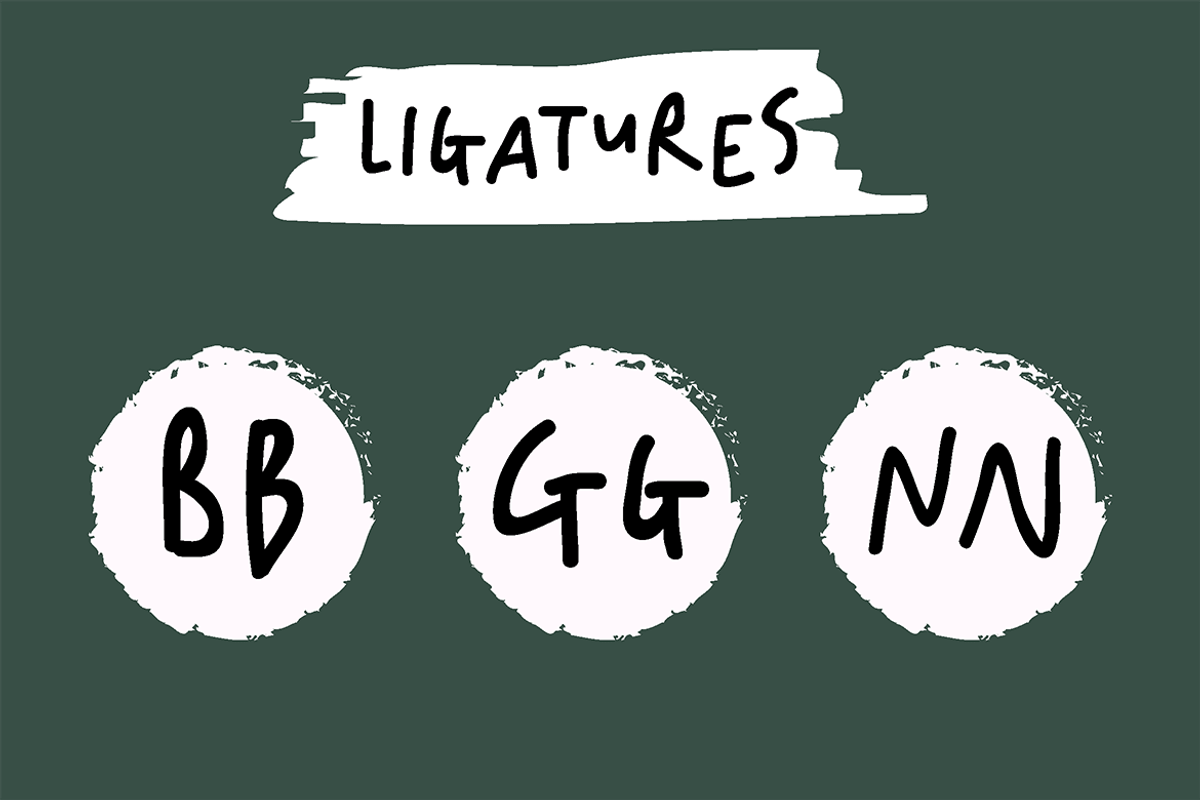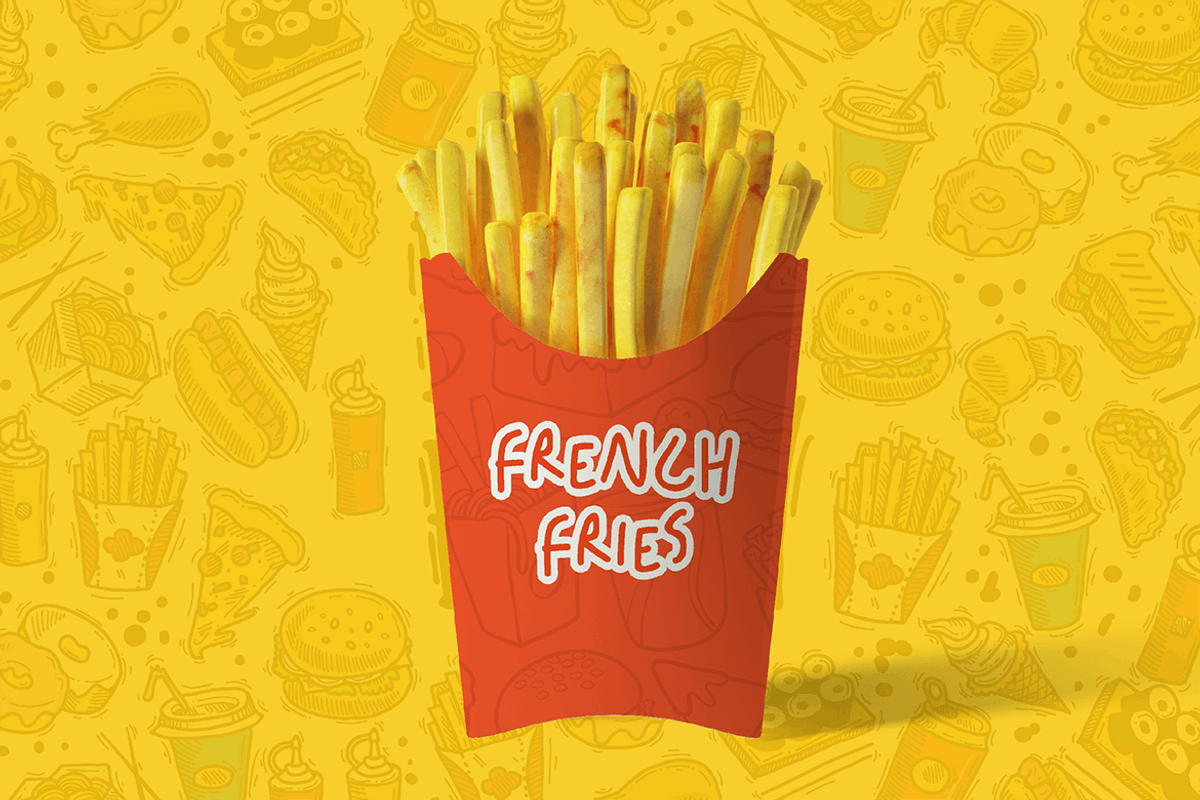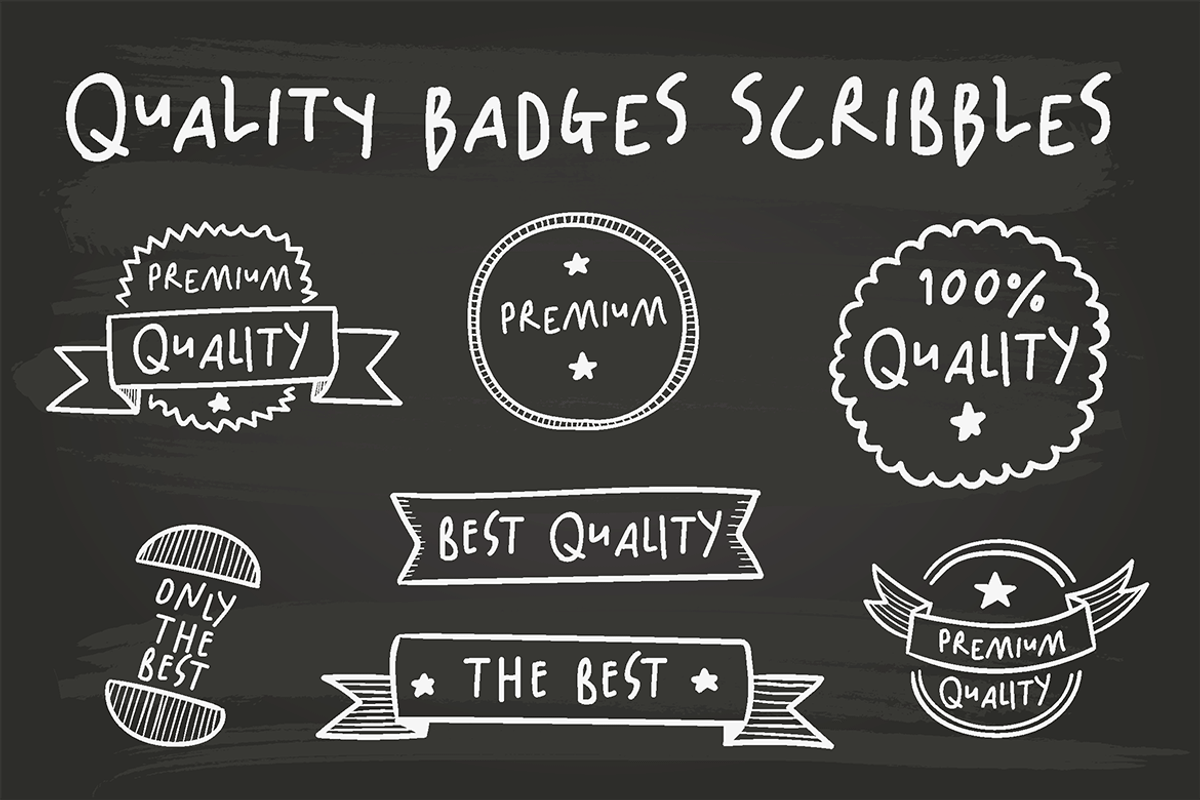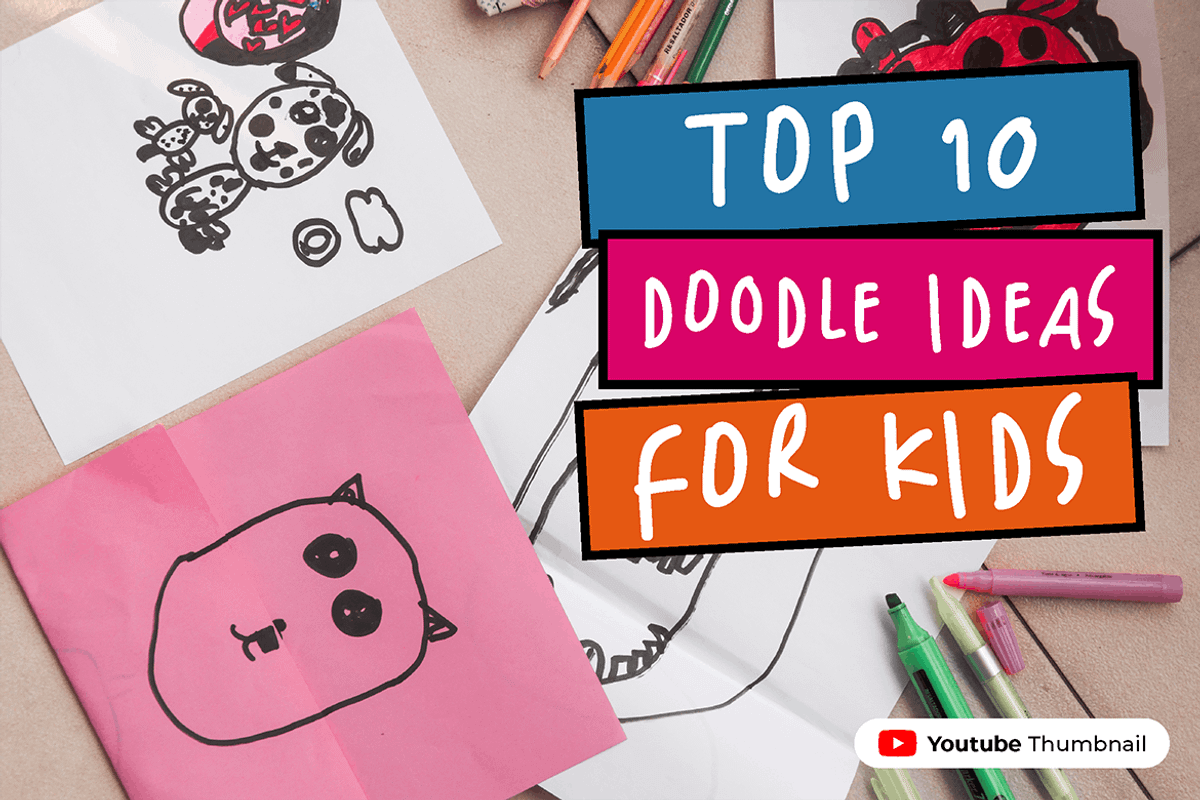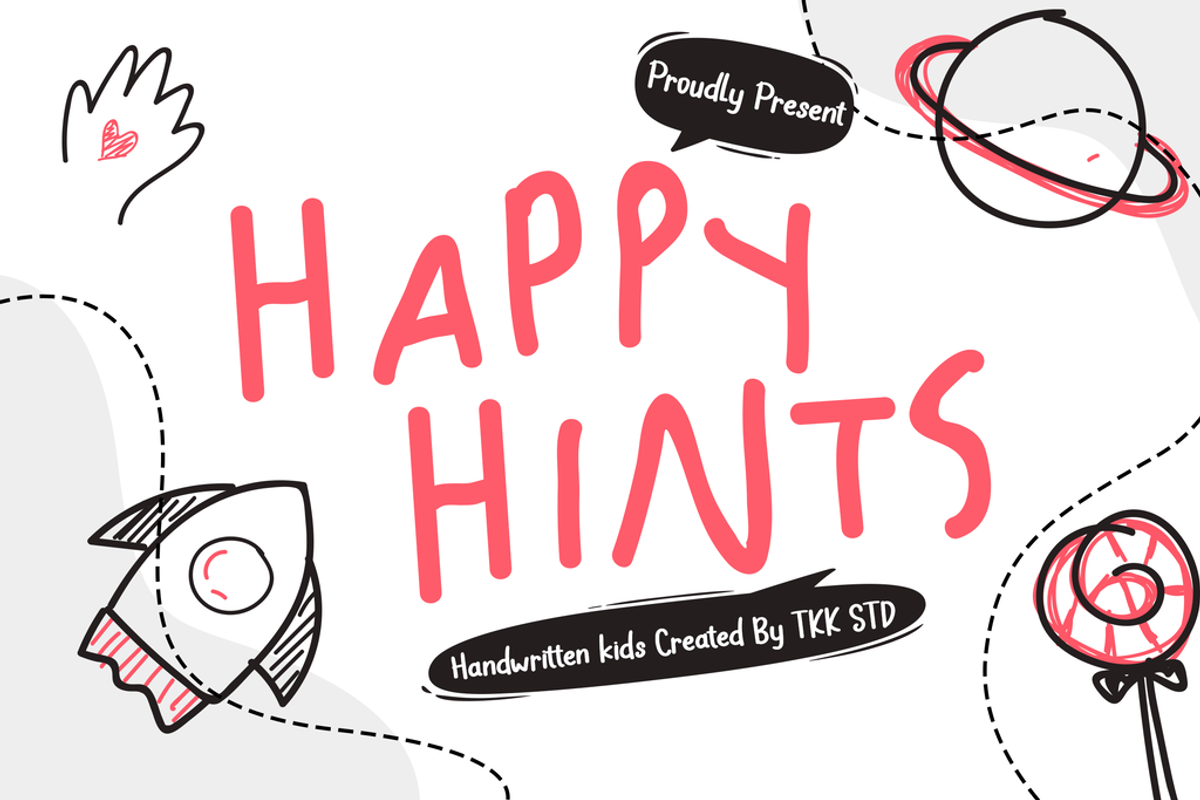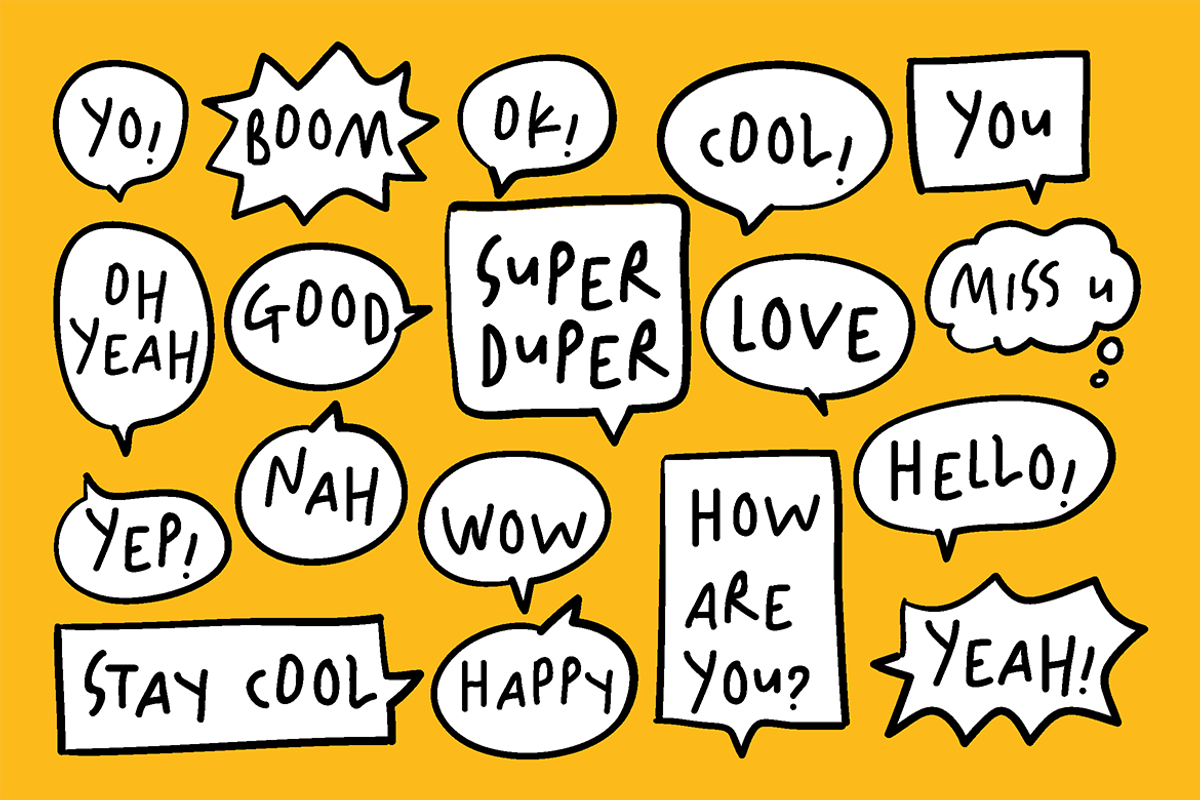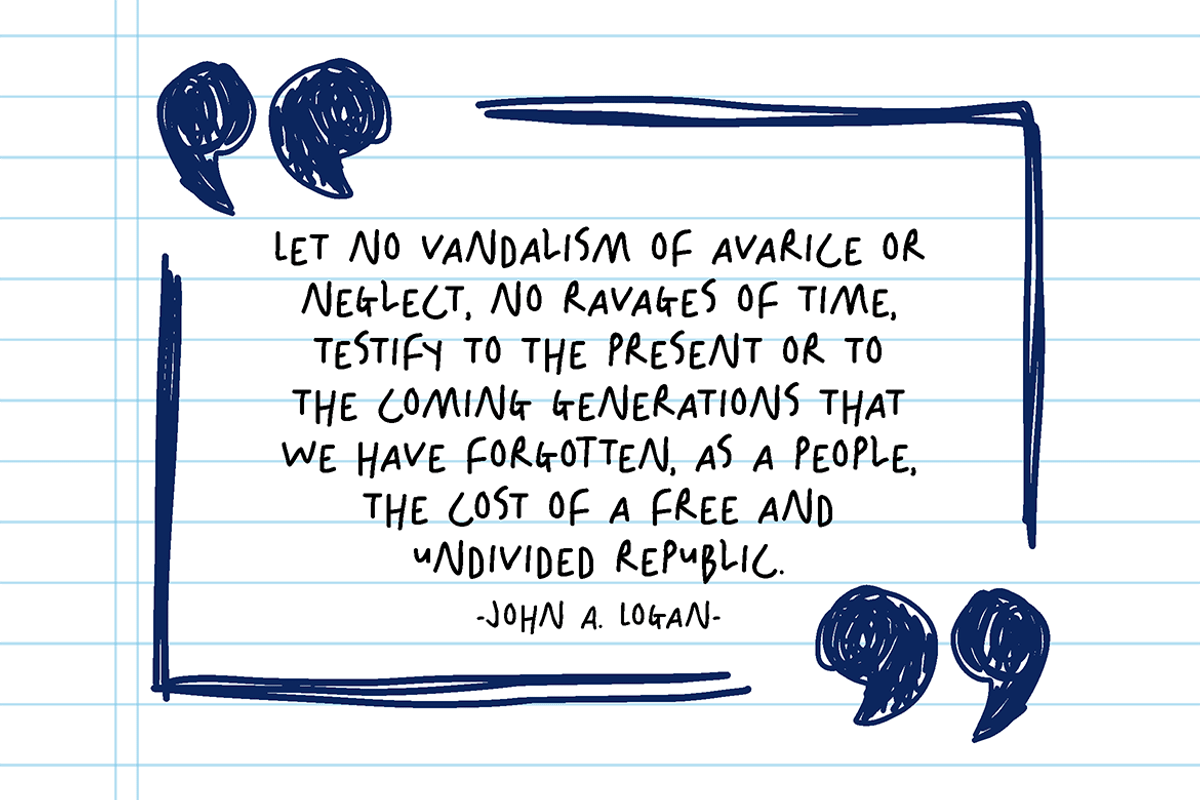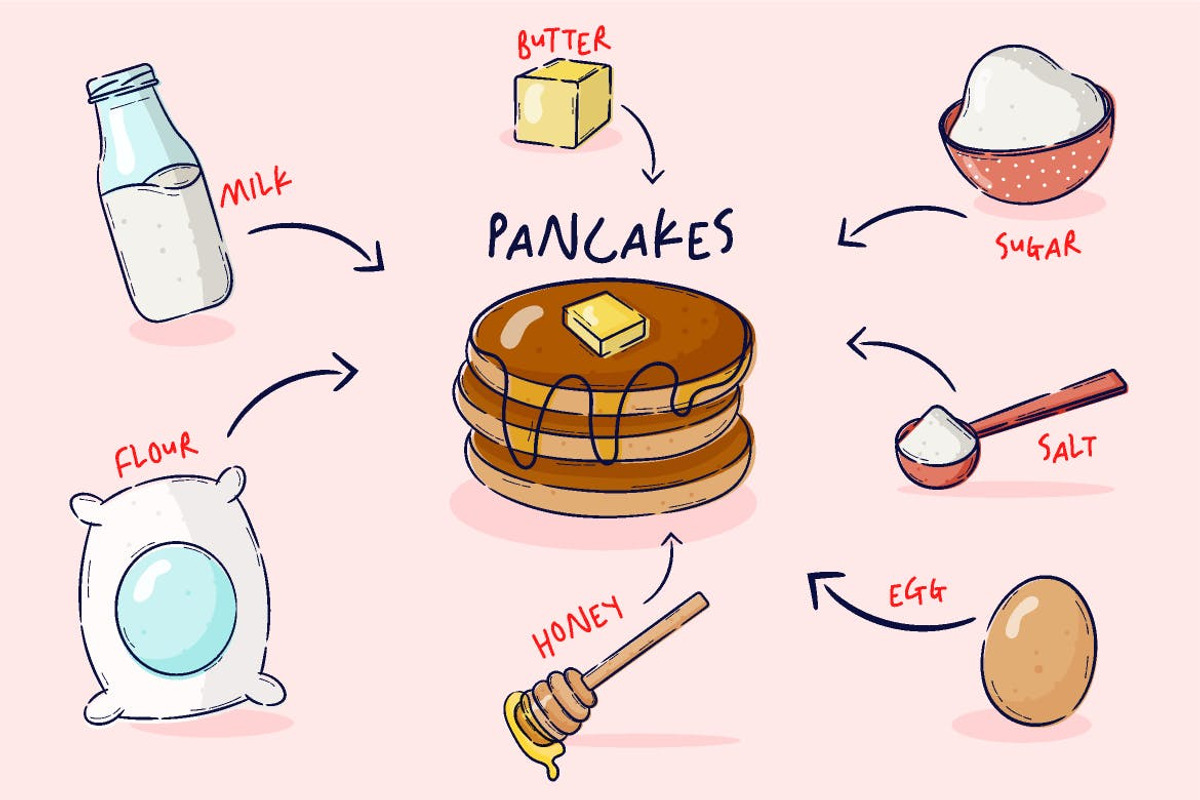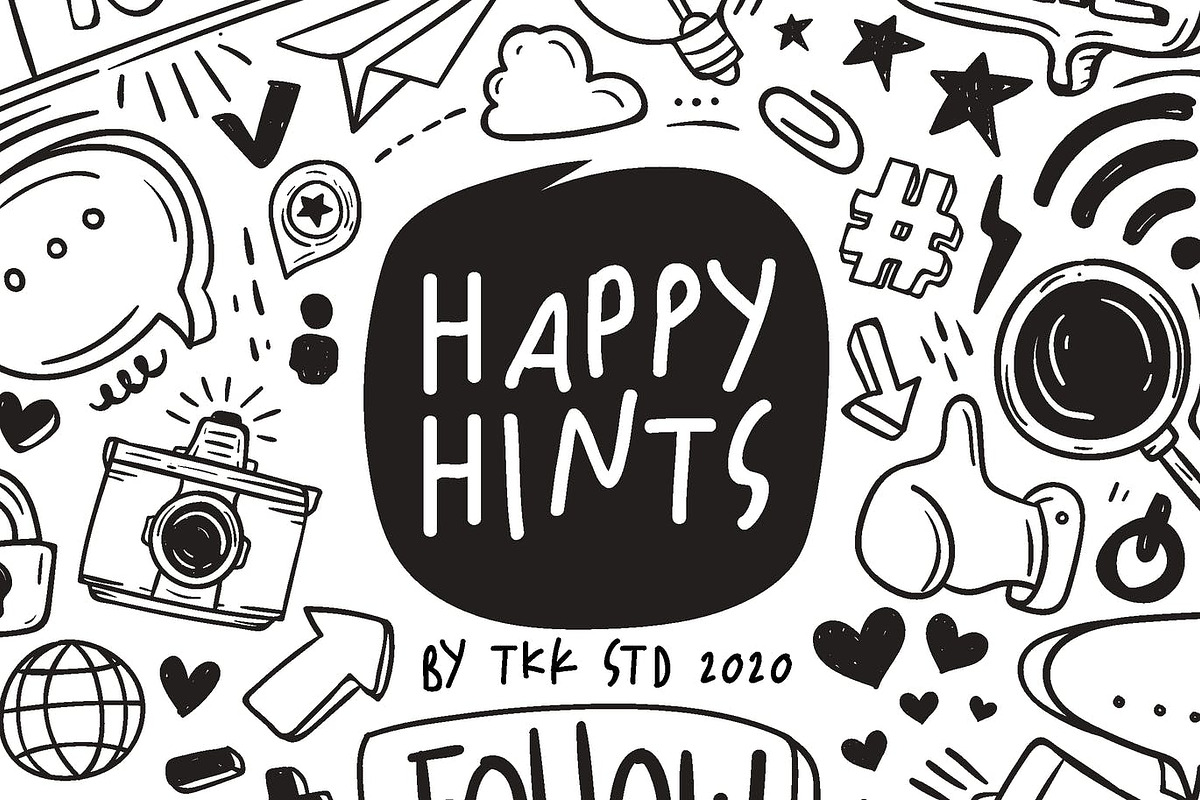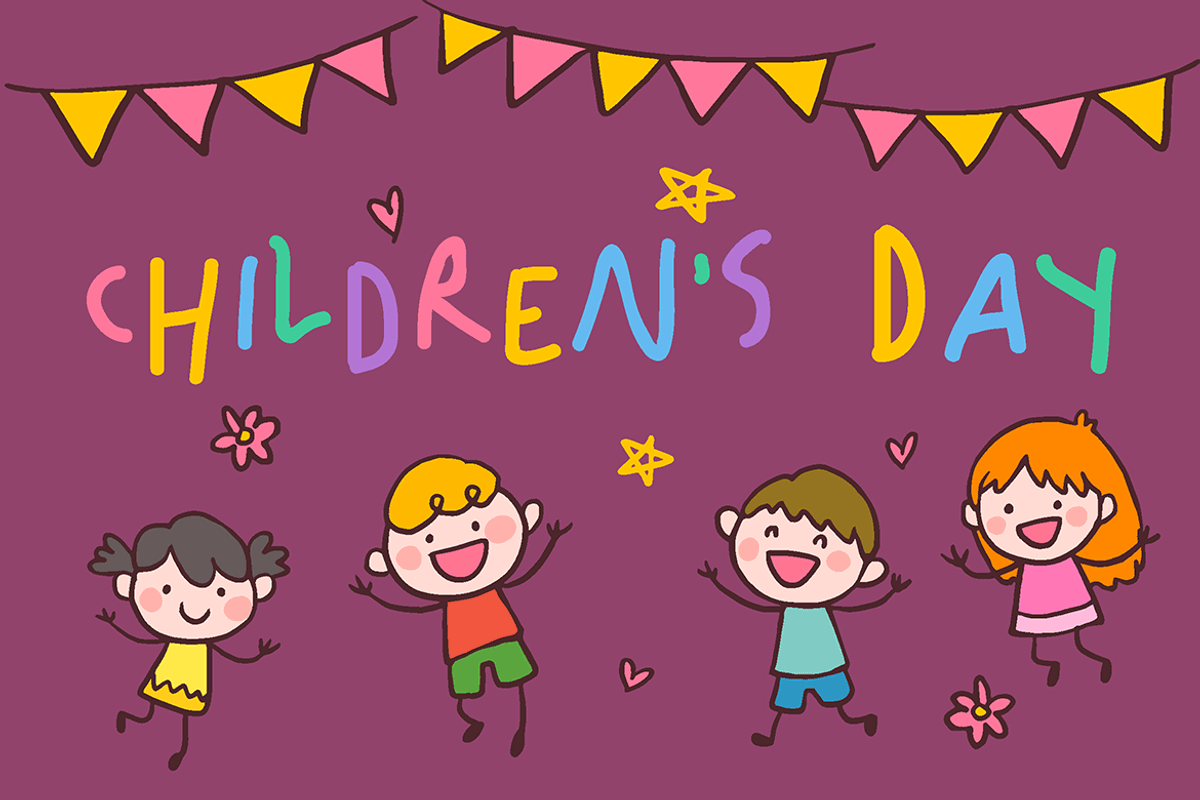
Happy Hints - Kids Font
Happy Hints kids font bring the children handwriting to its own level. with quirky shape, bouncy baseline, un-even line between letters, it bring a lot of scribble feel in it. When a children saw a poster with Happy Hints font being used, they will automatically feel home. They know that it is written by kids their age, so the message is trustable.
Suit perfectly for doodle font, food packaging writing, cafetaria wall scribble font, children book cover, children school product , instagram story writing, social media post, facebook post, choldren poster, wallpaper illustration, catchphrase stickers, magazine, youtube covers, youtube thumbnails, social media page covers and so on…